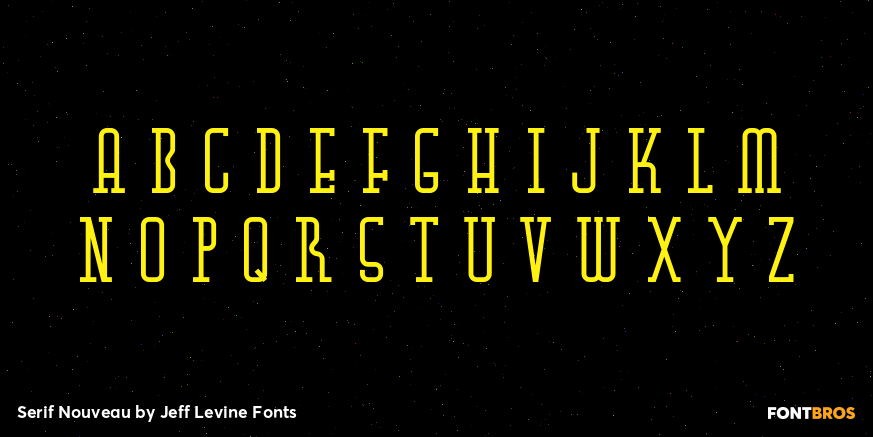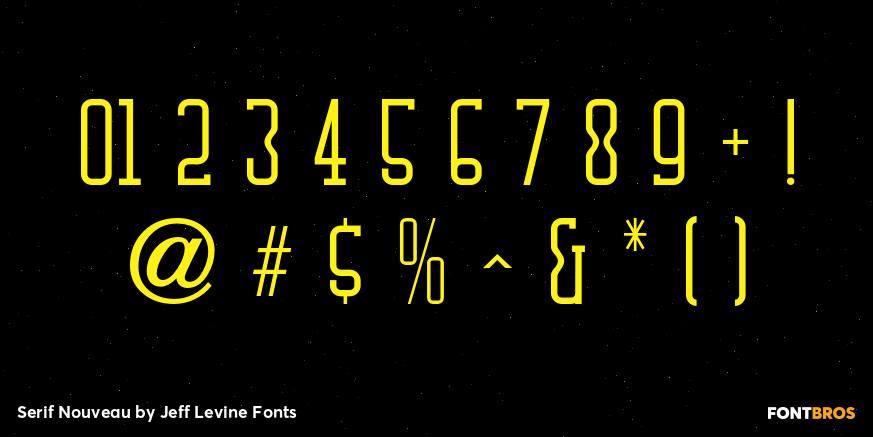
Serif Nouveau
Serif Nouveau JNL is a condensed type face based on the hand lettered title of a 1920s-era piece of sheet music for the song "Naturally".